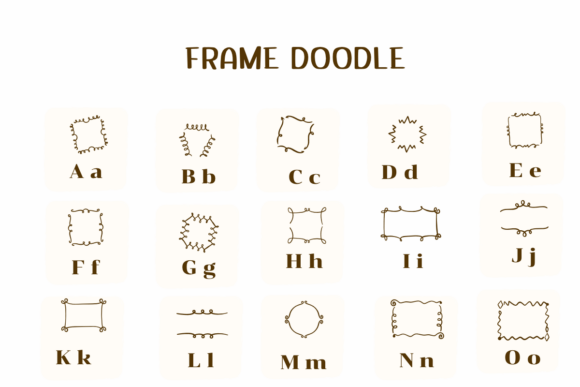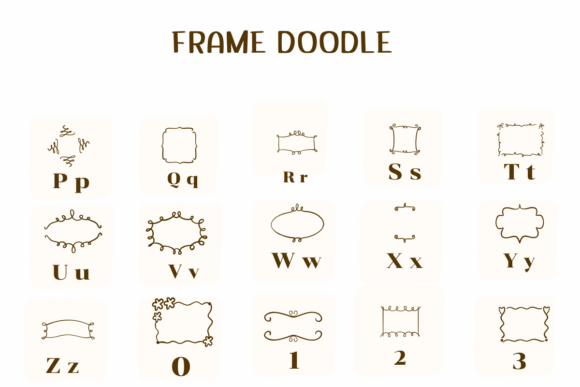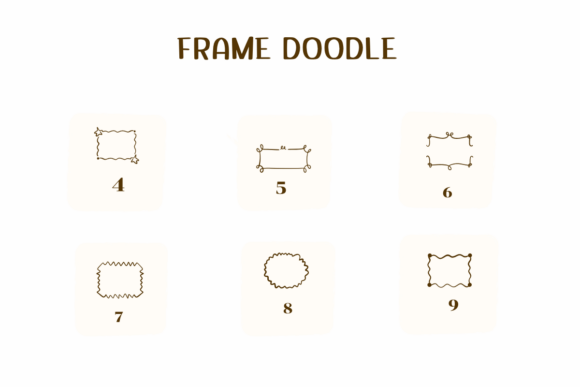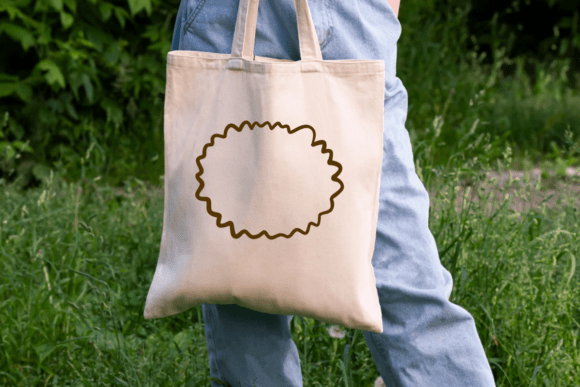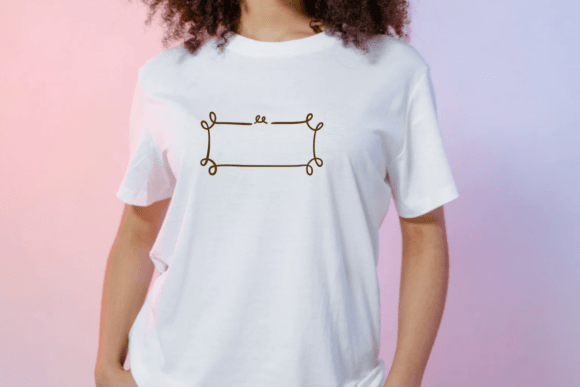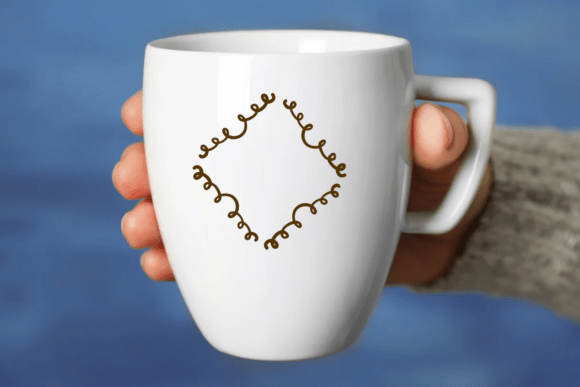
Introduction to Frame Doodle Font
Get playful and creative with the FRAME DOODLE Dingbats Font — a fun and quirky collection of doodle-style borders and frames.
Featuring wavy lines, swirls, squiggles, curls, and whimsical shapes, this font is ideal for children’s projects, party invites, journaling, classroom decor, or any design that needs a touch of joy and personality .
Key Features of Frame Doodle Font